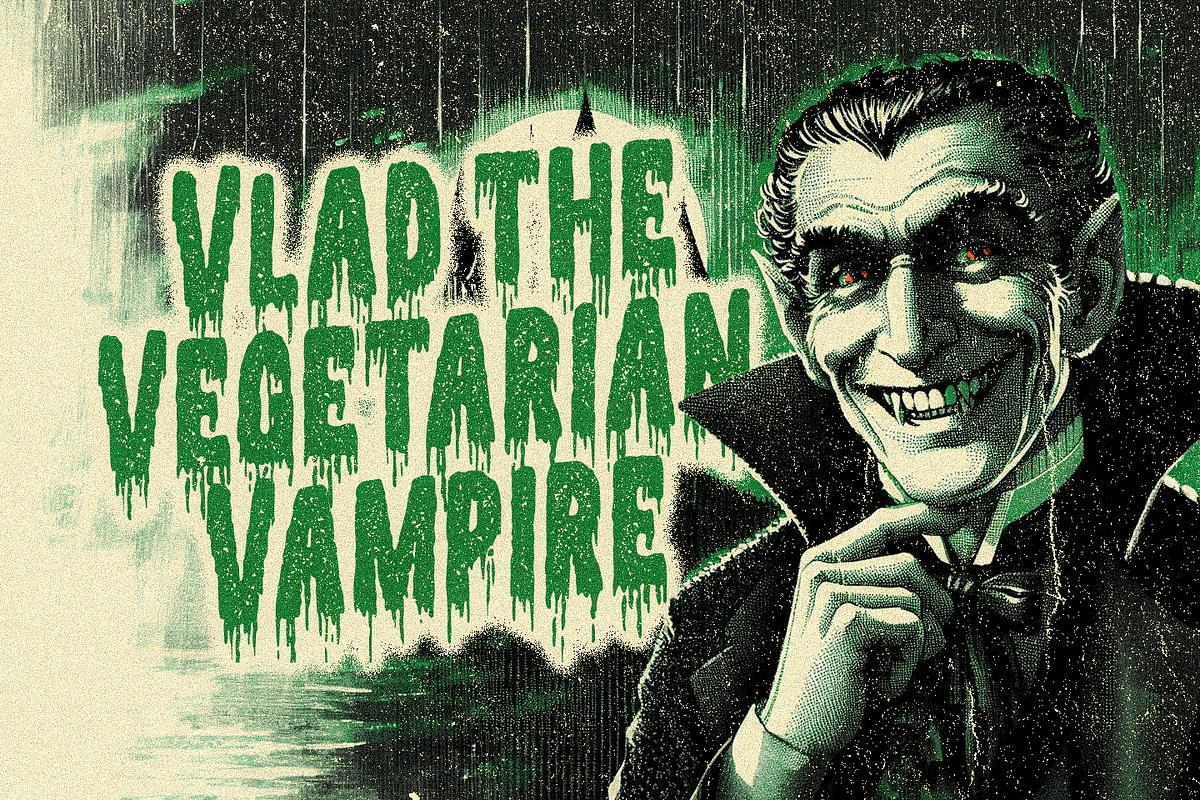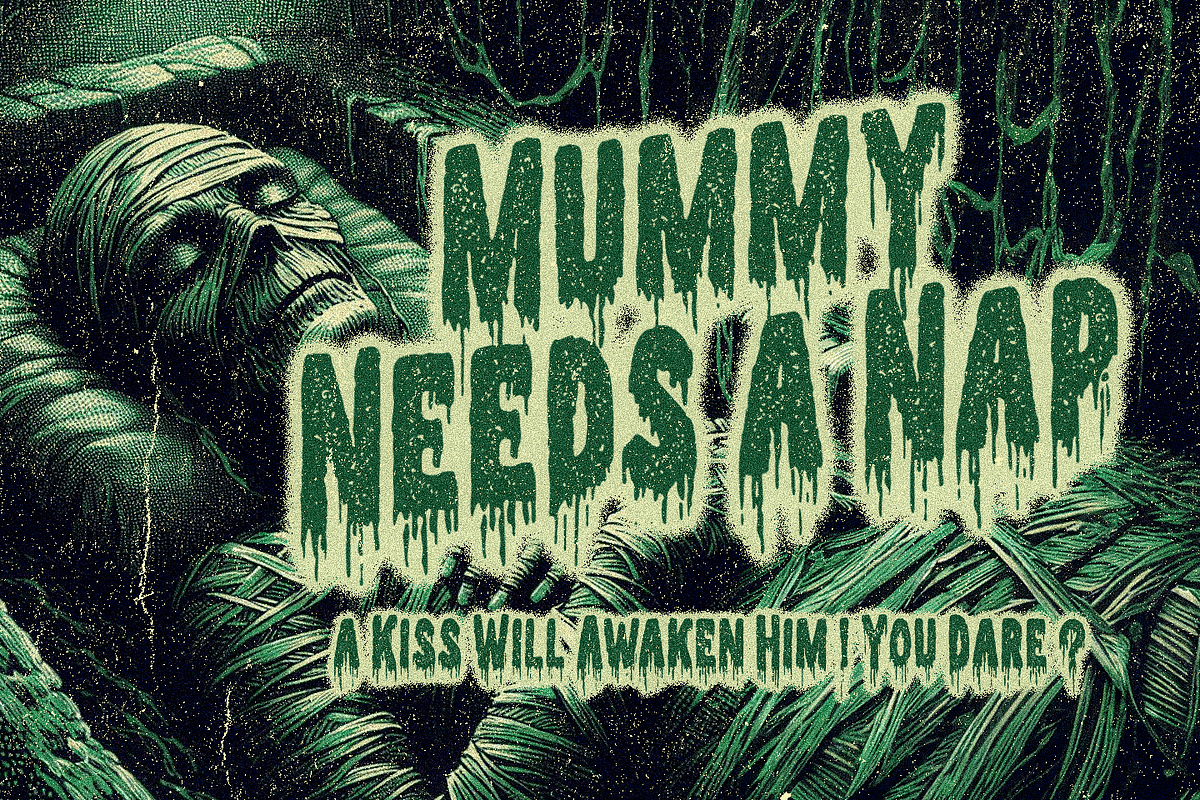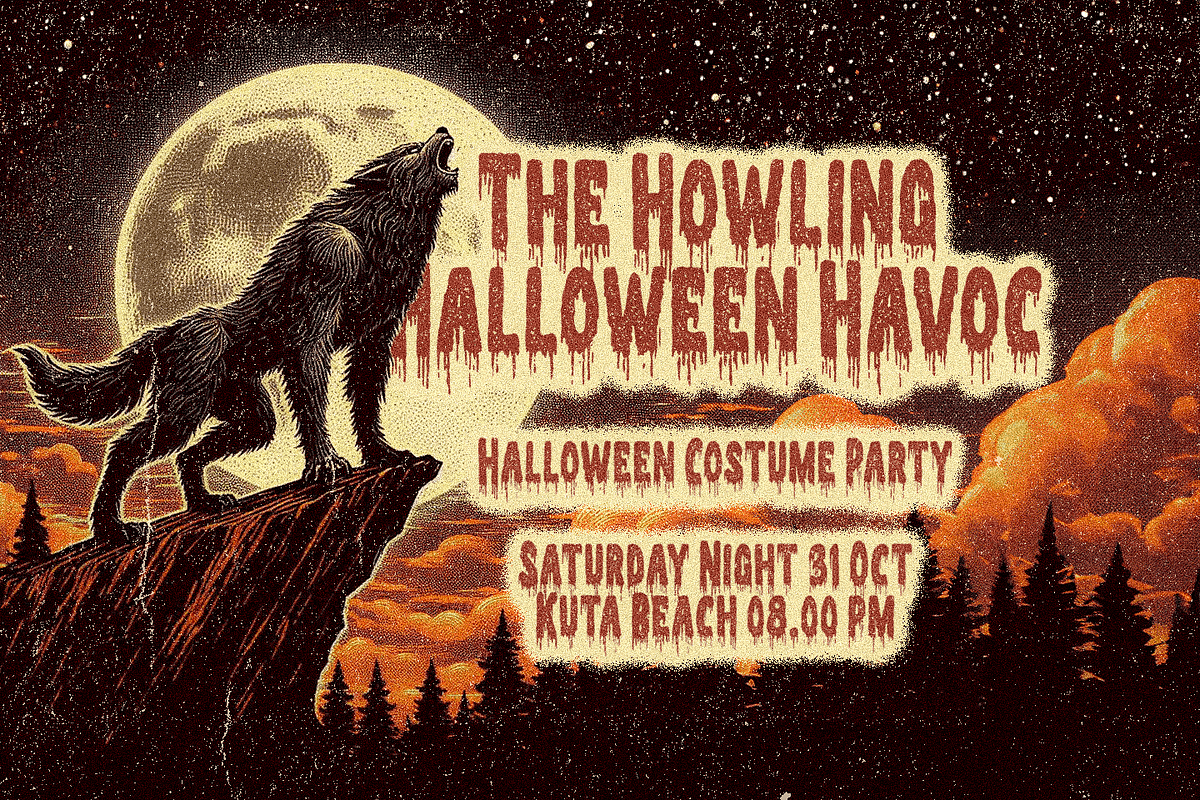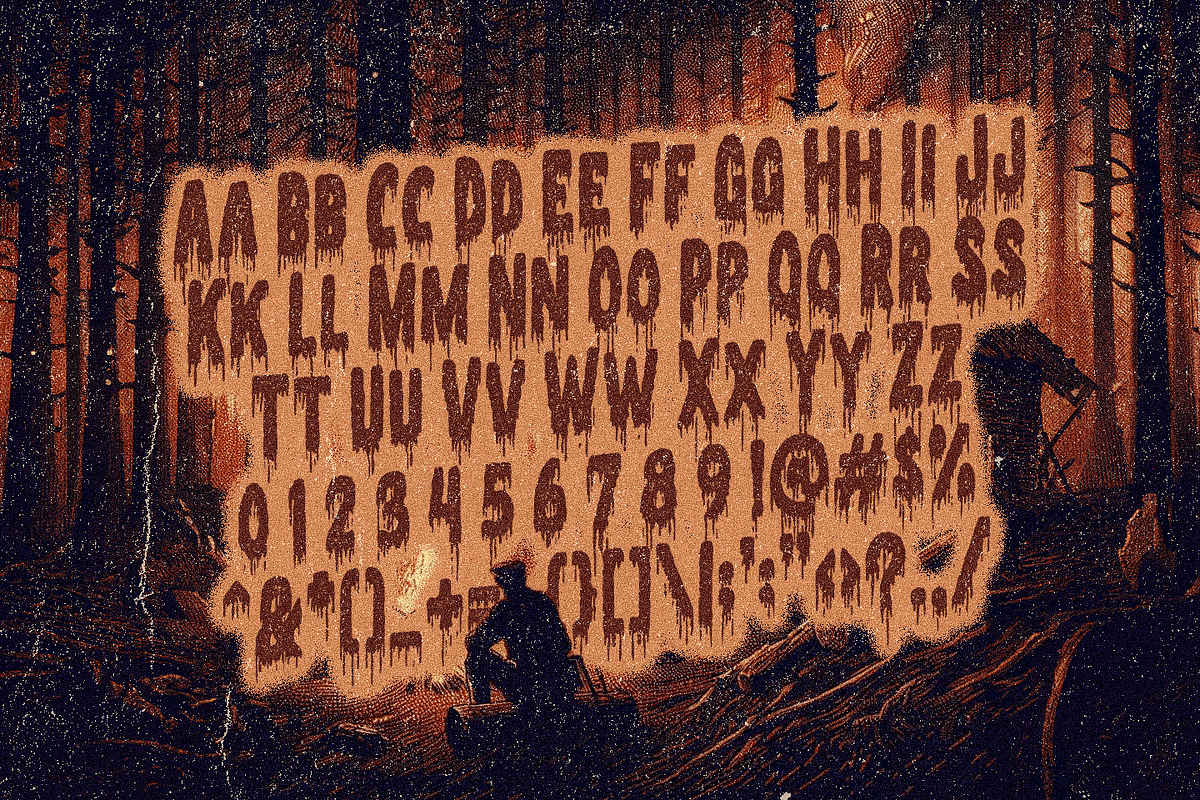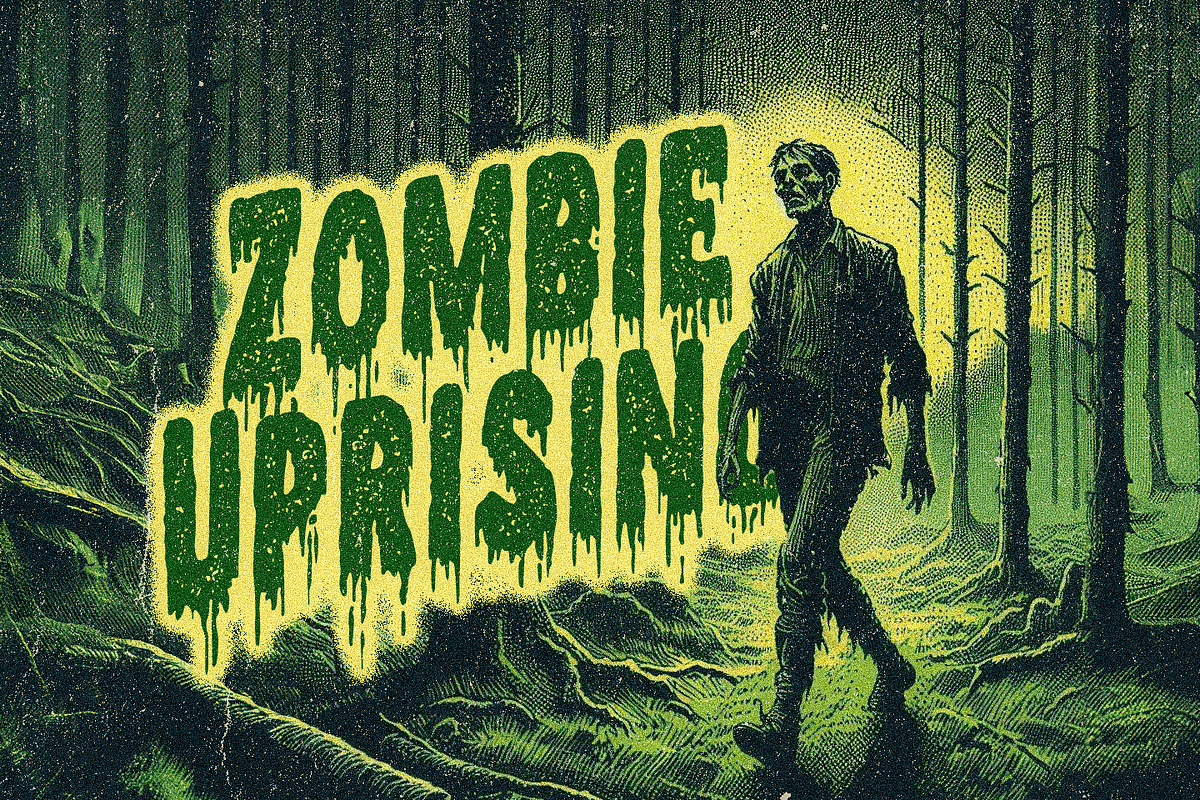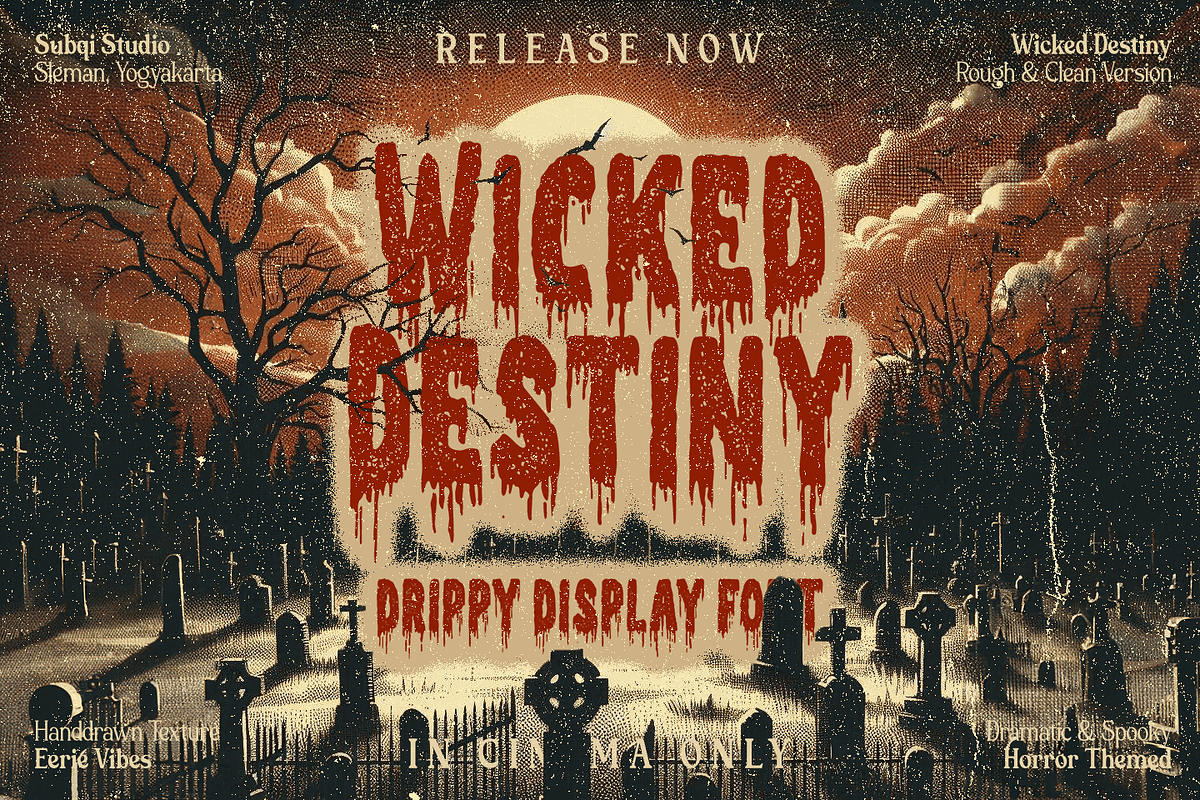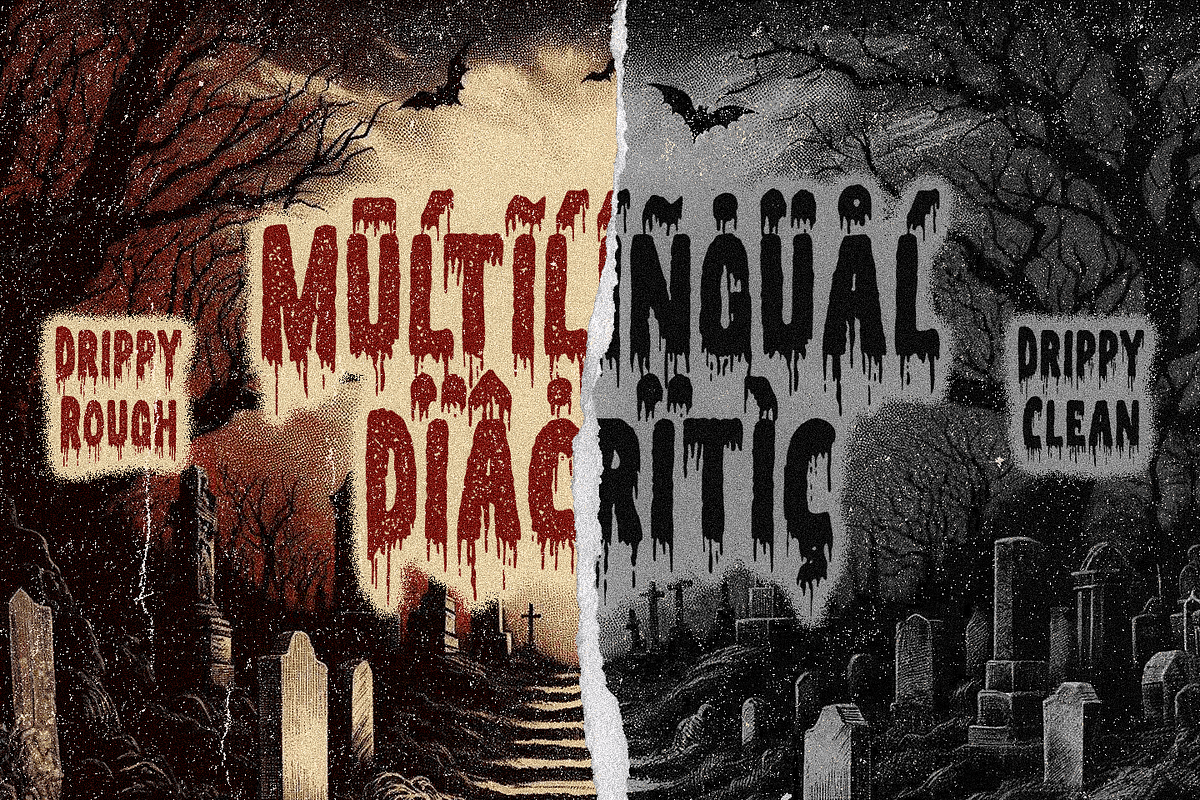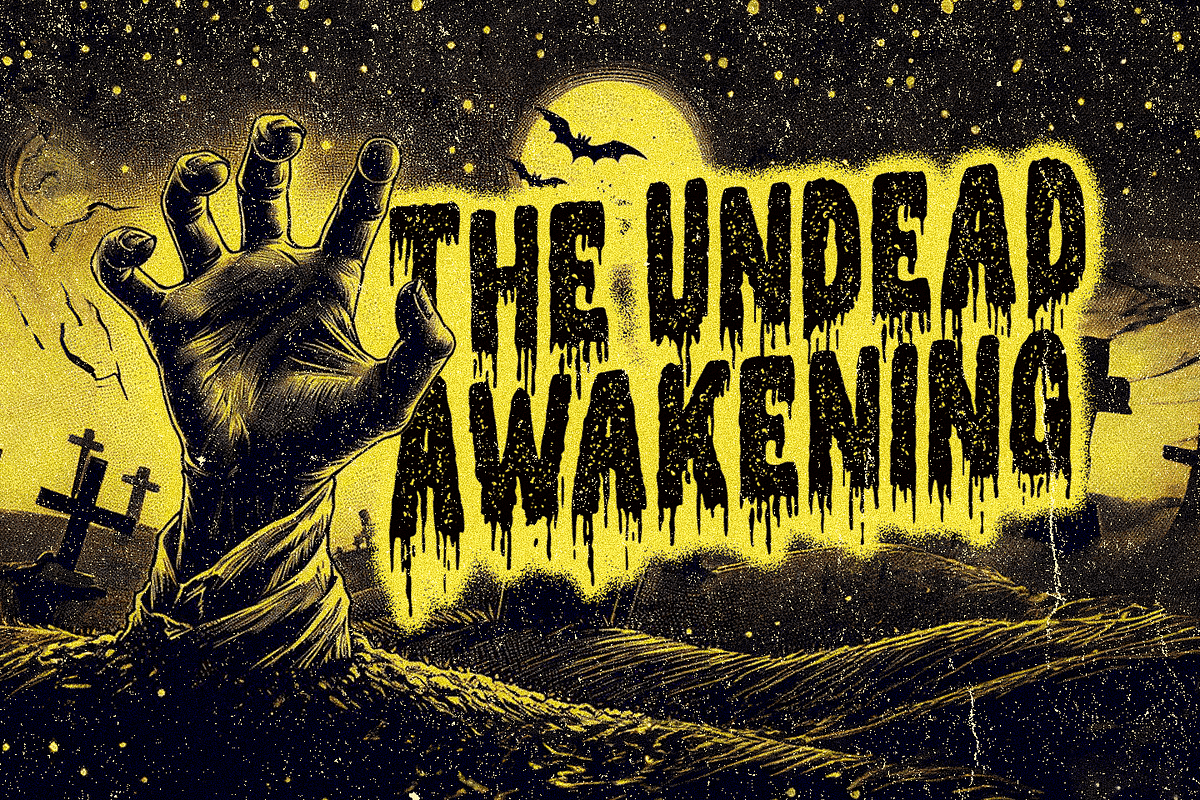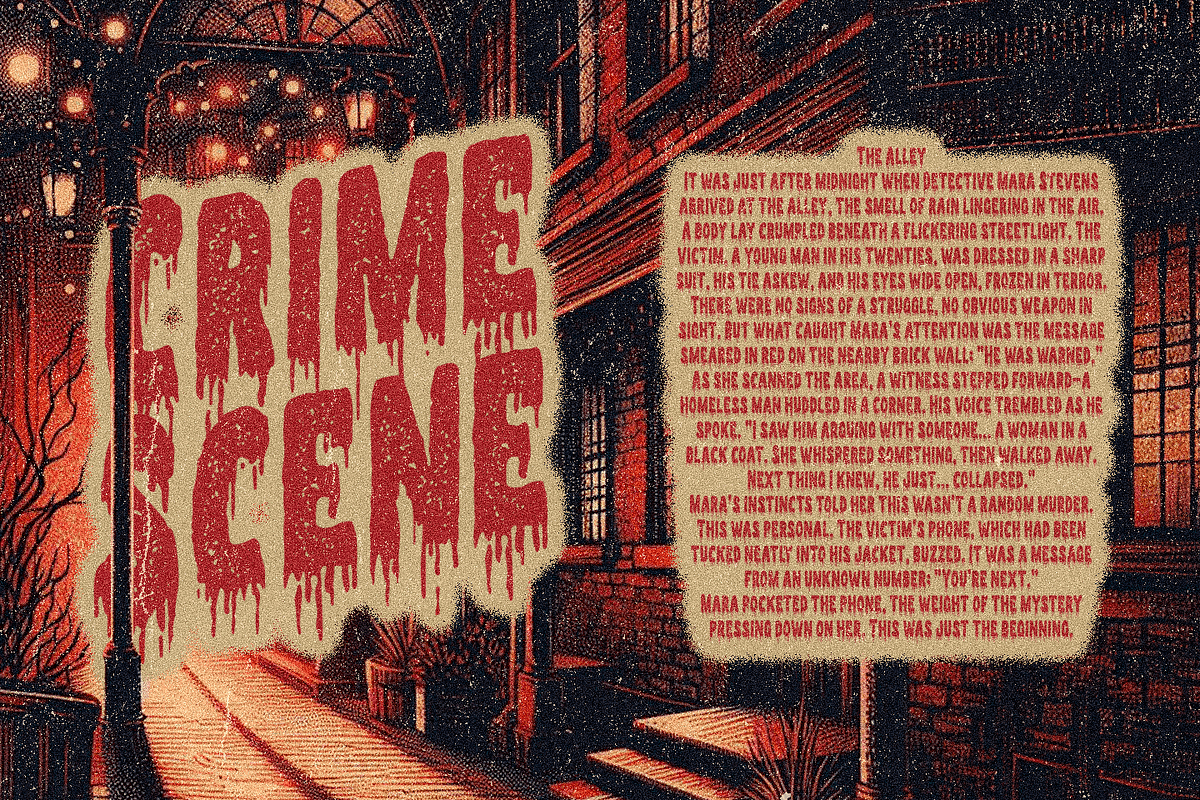
Wicked Destiny - Drippy Display Font
“Wicked Destiny” is a bold, drippy display font featuring a rough, hand-drawn texture that oozes with eerie vibes. Perfect for Halloween designs, horror-themed posters, or any project needing a bloody, sinister touch, this font captures a chilling atmosphere with its dripping letters and uneven edges. Available in both rough and clean versions, it brings a dramatic and spooky feel to your creative work.